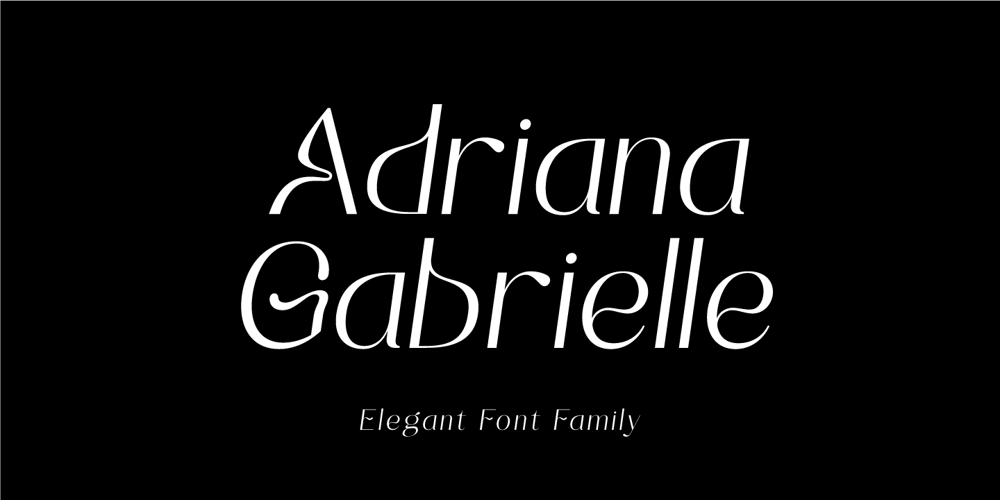
Adriana Gabrielle Font Family was designed by Akhmad Reza Fauzi and published by Grezline Studio. Adriana Gabrielle contains 4 styles and family package options. Adrianna Gabrielle is an elegant sans serif font family. This font has an aesthetic and classy characteristics. Adrianna Gabrielle font is ideal for your upcoming projects, such as luxury logo and branding, woman magazine, cosmetic brand, fashion promotional, art gallery branding, boutique branding, stationery design, blog design, modern advertising design, card invitation, book/cover title and many more.Feature :- Ligature & Alternate glyphs- Multilingual Language- Works on PC & Mac- Simple installations- Accessible in the Adobe Illustrator, Adobe Photoshop, Adobe InDesign, even works on Microsoft Word.Thank youAkhmad Reza Fauzi – Grezline Studio